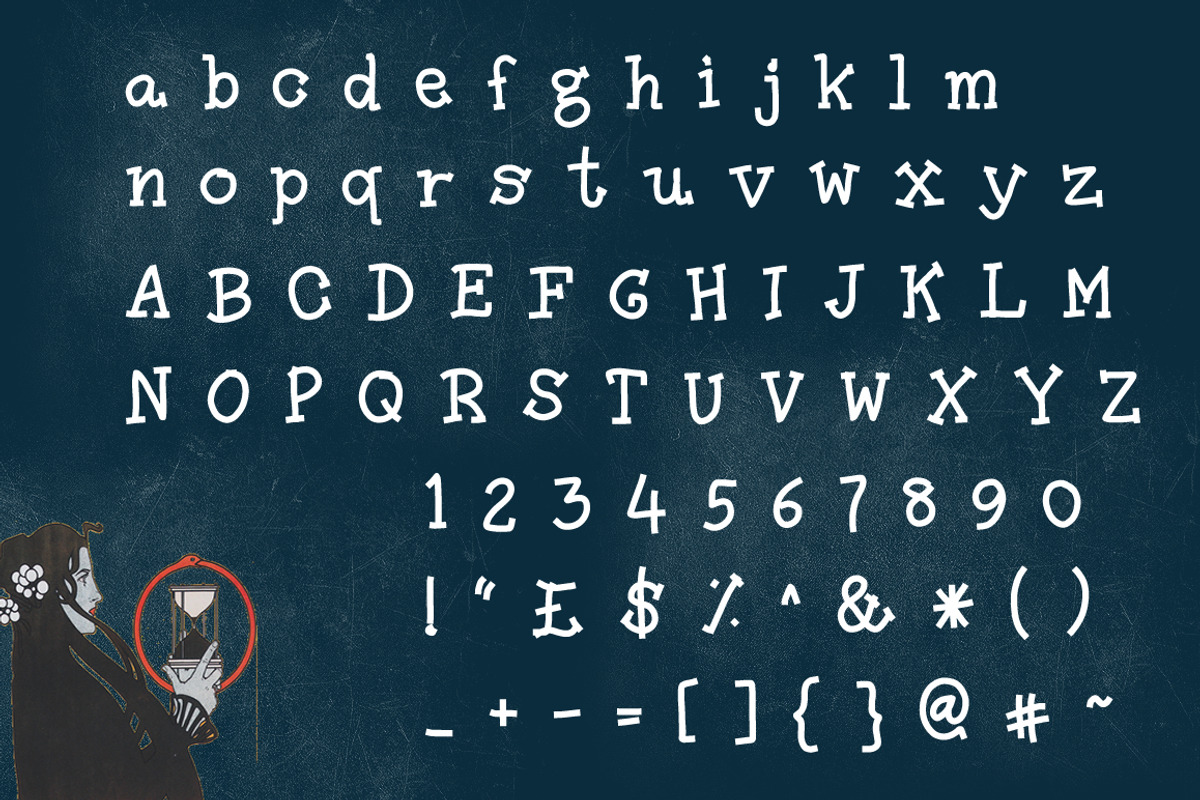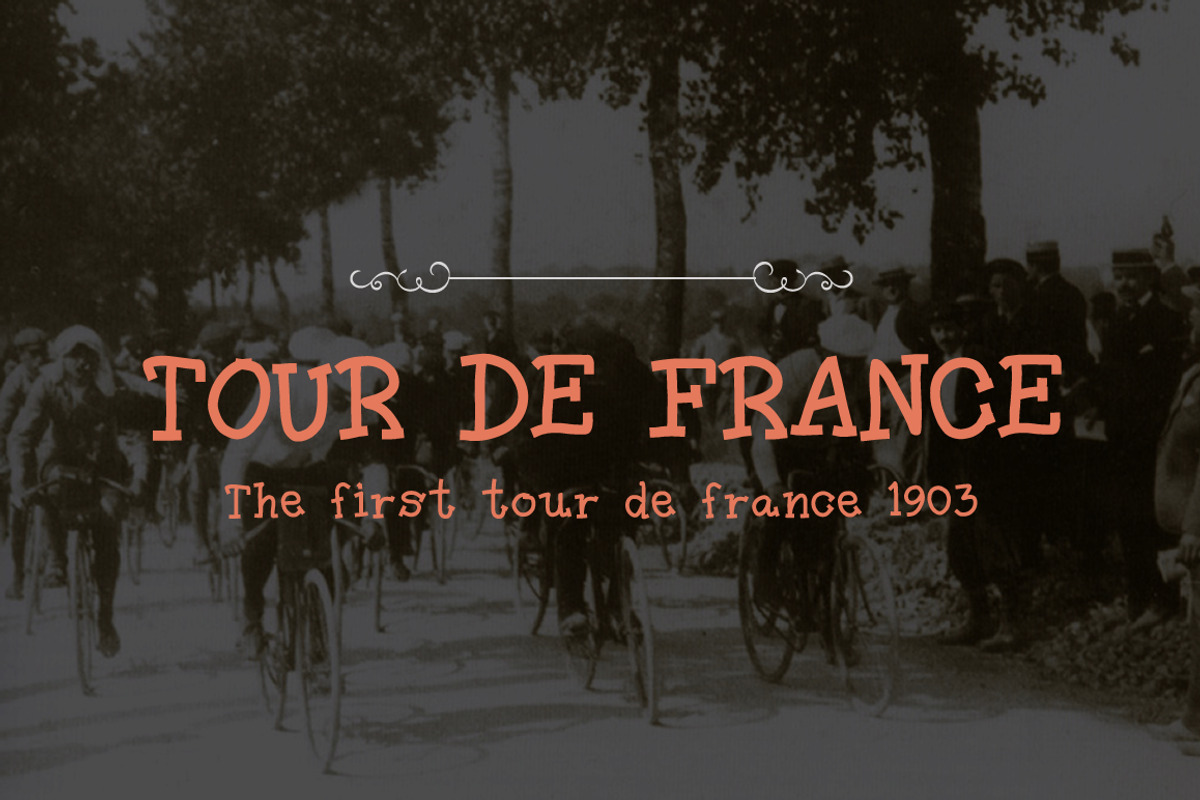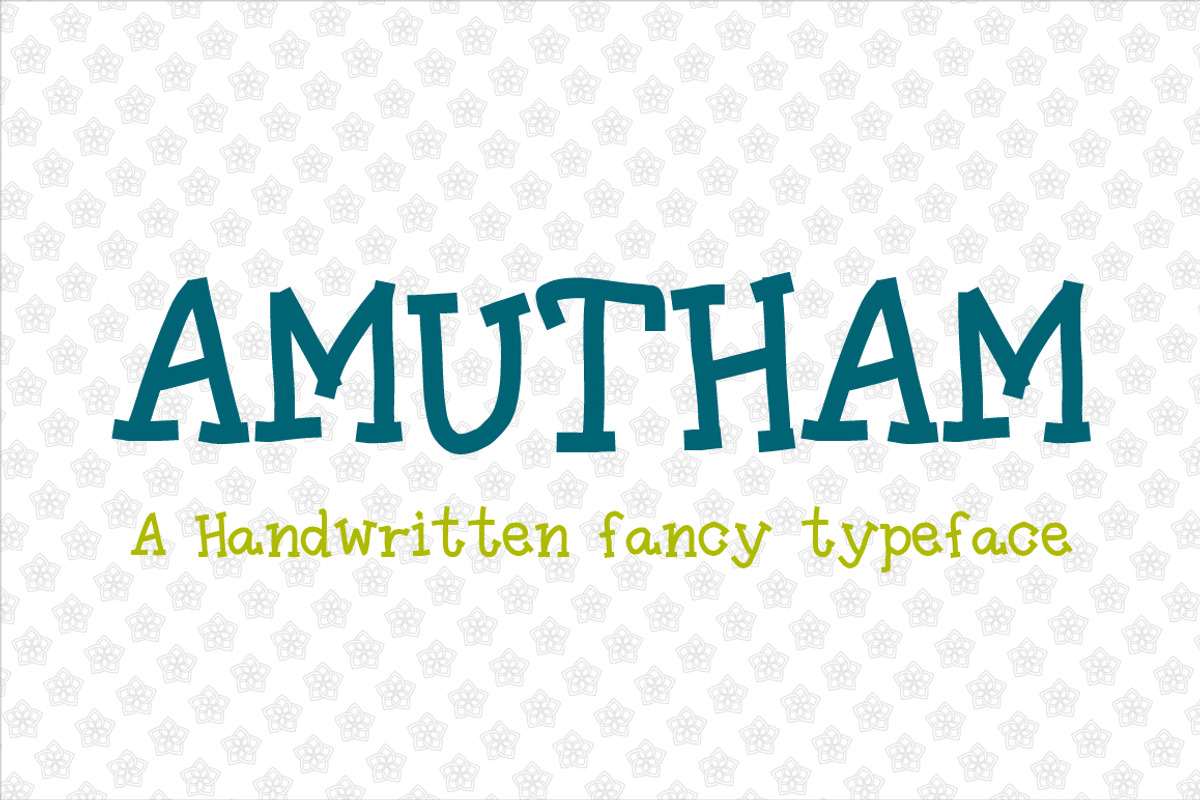
Amutham Typeface
Amutham Typeface by Niram Factory is a font selected for branding, posters, packaging, typography.
Why Amutham Typeface is worth a look
Amutham Typeface by Niram Factory fits naturally into Branding, posters, packaging, typography.